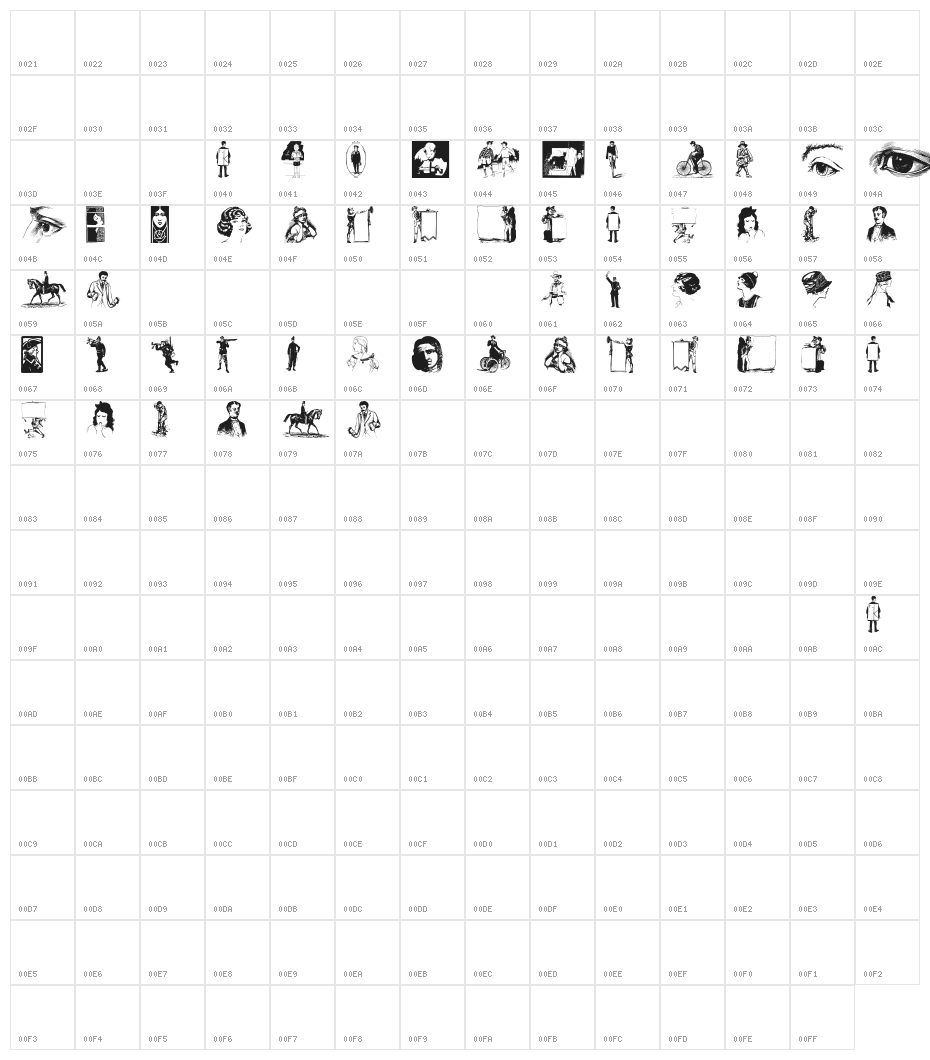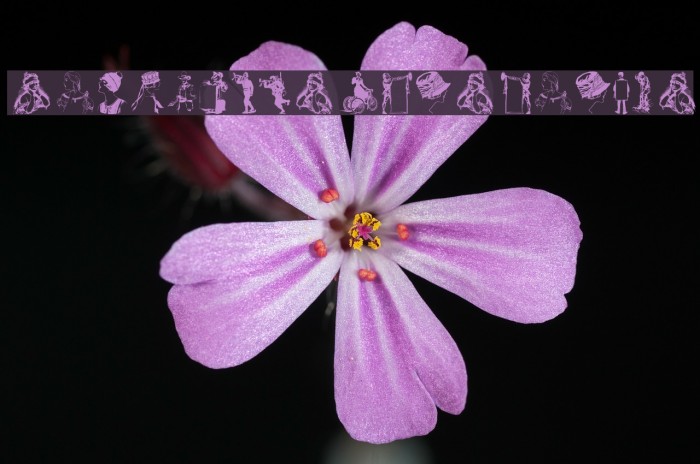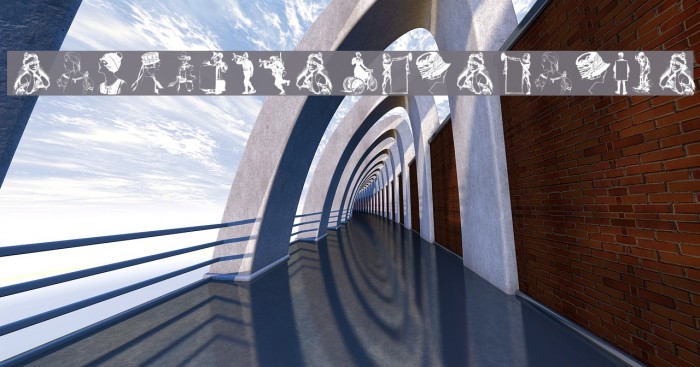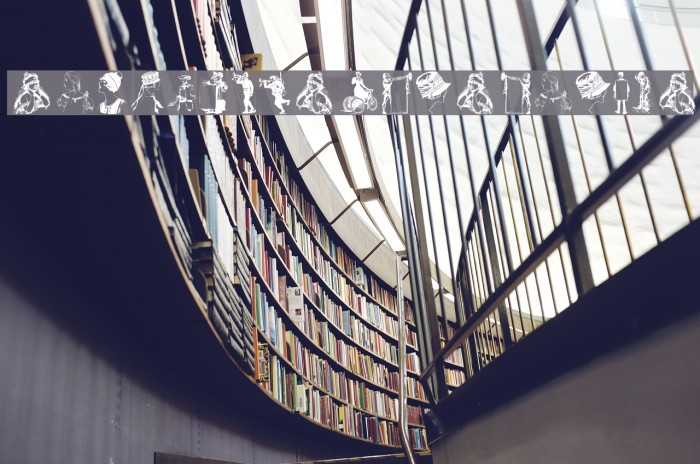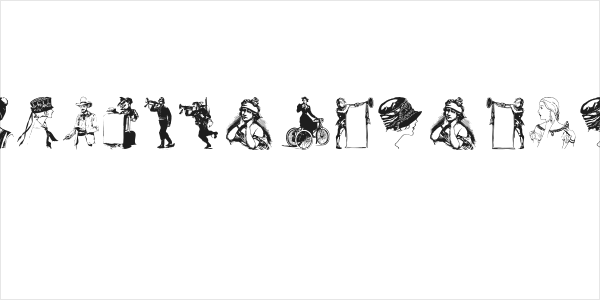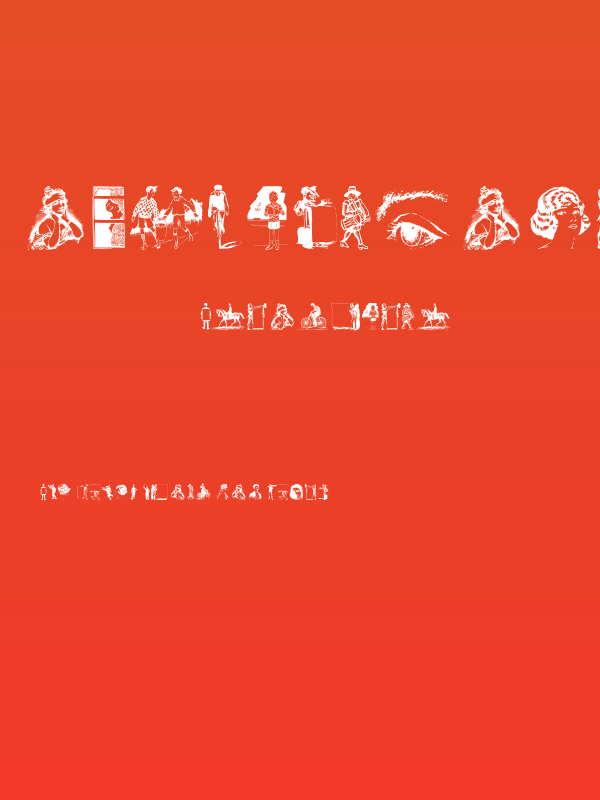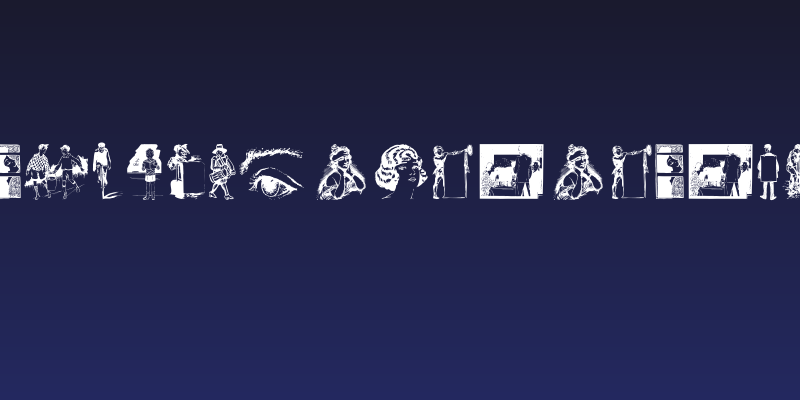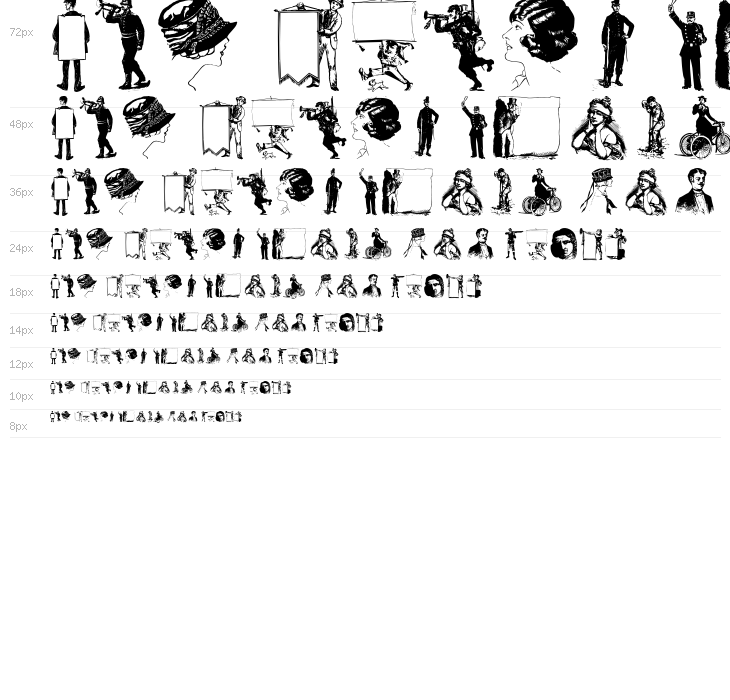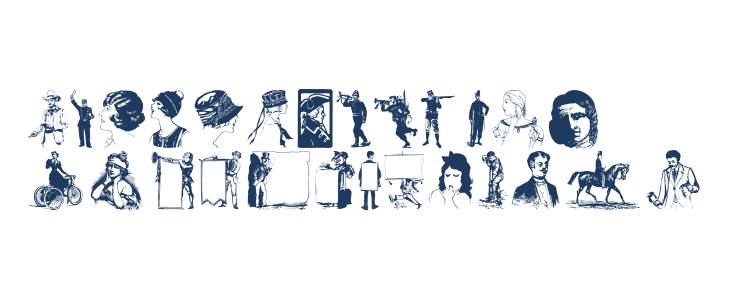
OldfashionPeopleTwo Font
OldfashionPeopleTwo Description
A collection of highly detailed, hand-drawn illustrations depicting vintage people, faces, and scenes in black and white, with a strong emphasis on expressive line work and historical attire.
| Overall Style | Vintage, Decorative |
| Use Case | Decorative elements, illustrative accents, themed designs. |
| Proposed Projects | Posters, book covers, historical presentations, educational materials, decorative prints. |